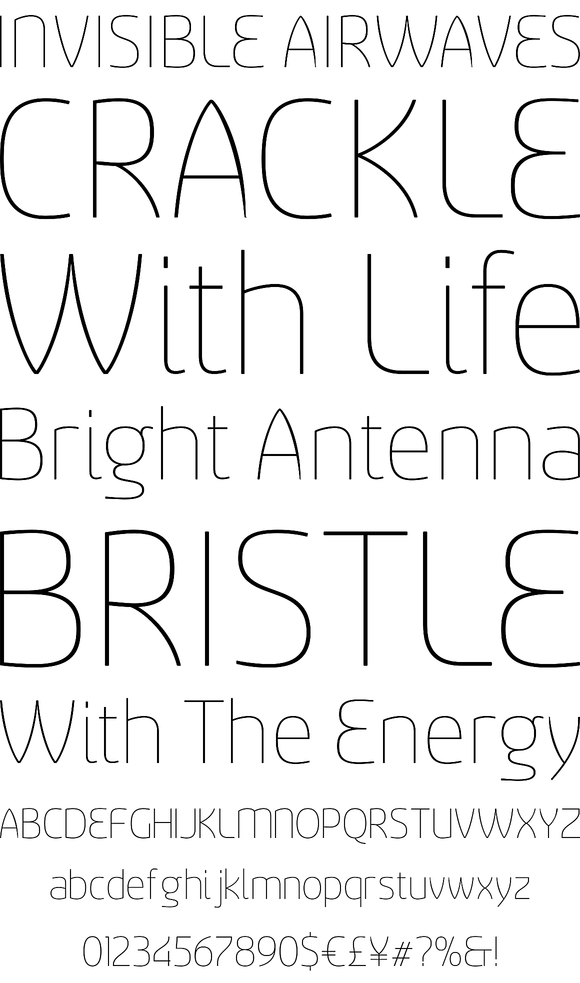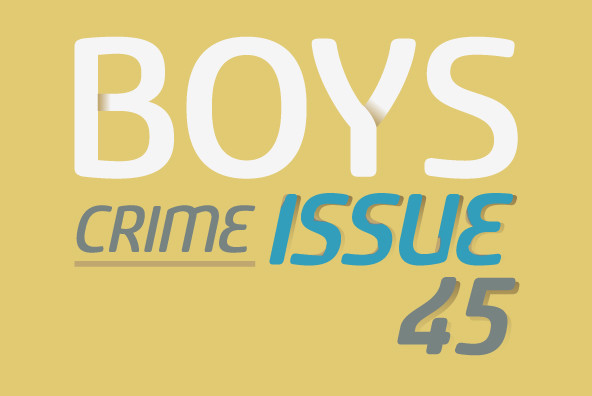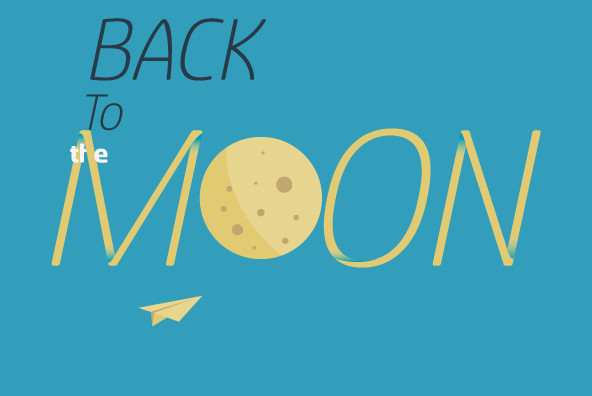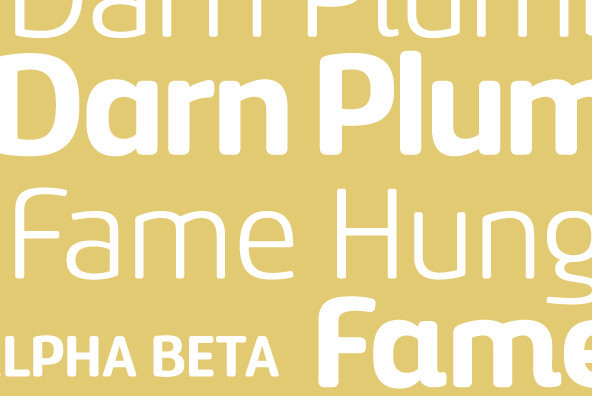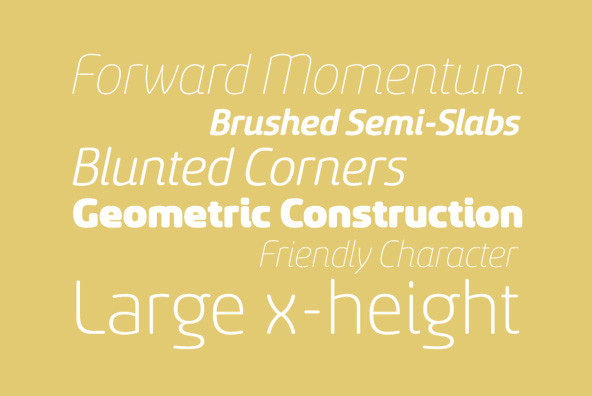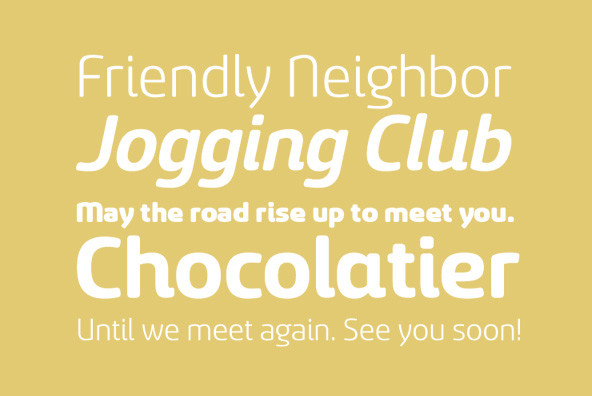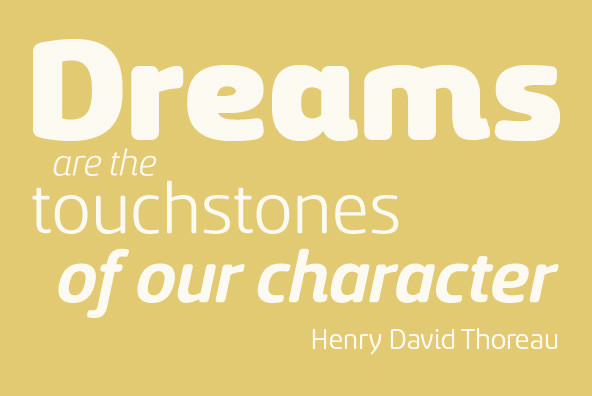
Sancoale Softened
Sancoale Softened is the new rounded companion to Sancoale. While the original Sancoale is crisp and defined, its delicate forms also lend themselves well to a lighter, more rounded version. The stems of Sancoale Softened are blunted, and its corners have been carefully rounded, avoiding the “sausage” look seen with some rounded fonts. This blend of definition and delicacy makes the Sancoale Superfamily versatile and appropriate for a variety of applications. The design minimizes the characters to their essence, leaving a default set of simple characters without notches or spurs. However, the typeface family’s slightly technological feel still appears friendly and approachable to the reader. It’s slightly condensed proportions and tall x-height also make the design readable at a wide range of sizes, which works especially well for web pages. These softer letterforms give Softened its unique, futuristic look--great for distinguishing your text or display. There are six weights with true italics. All insigne™ fonts are fully loaded with OpenType features. Sancoale Softened is also equipped for complex professional typography, including alternates with stems, small caps and plenty of alts, including “normalized” capitals and lowercase letters. The face includes a number of numeral sets, including fractions, old-style and lining figures with superiors and inferiors. OpenType capable applications such as Quark or the Adobe suite can take full advantage of automatically replacing ligatures and alternates. You can find these features demonstrated in the .pdf brochure. The Sancoale family also includes the glyphs to support a wide range of languages, including Central, Eastern and Western European languages. In all, Sancoale Softened supports over 40 languages that use the extended Latin script, making the new addition a great choice for multi-lingual publications and packaging. Sancoale Softened continues with Sancoale’s successfully simple, geometric and legible structure. With its suitability for a wide range of uses, the Sancoale superfamily is a very economical and versatile addition to any designer’s font collection.